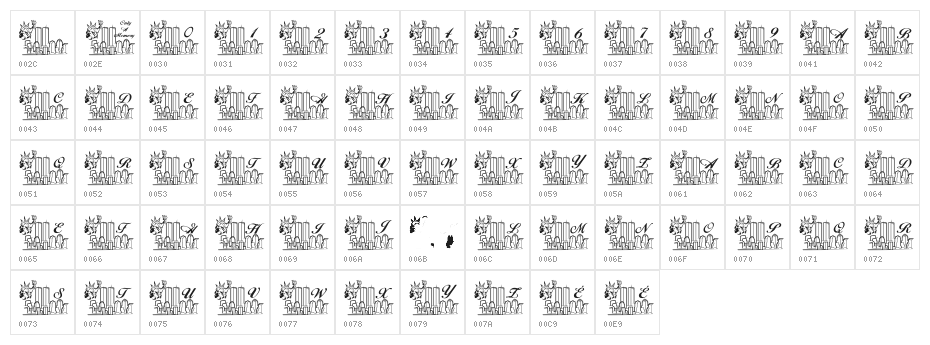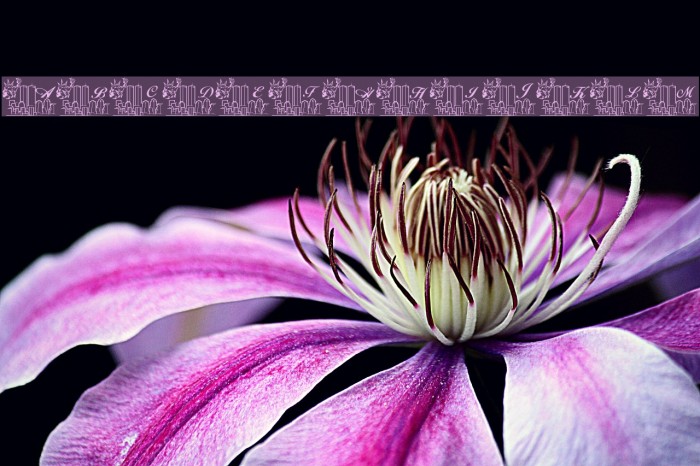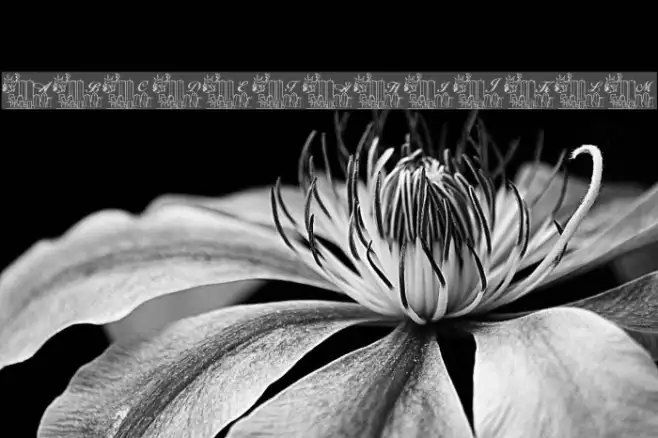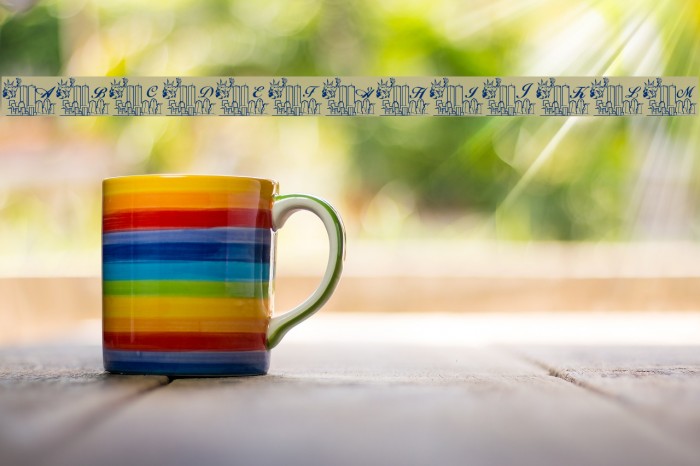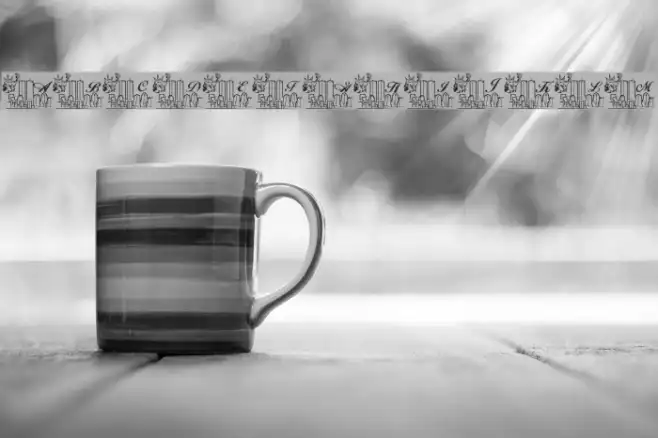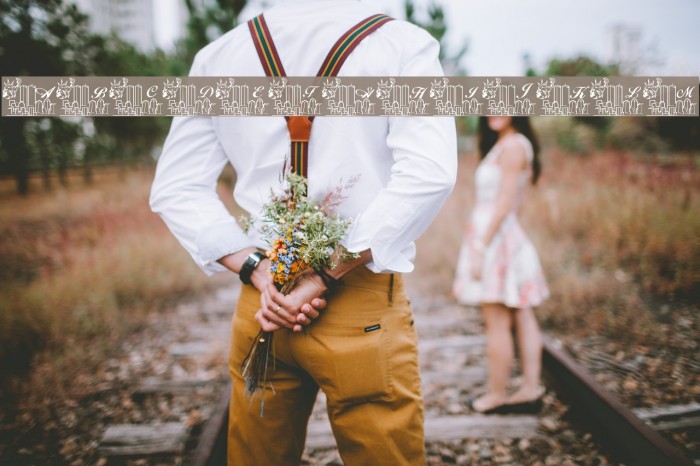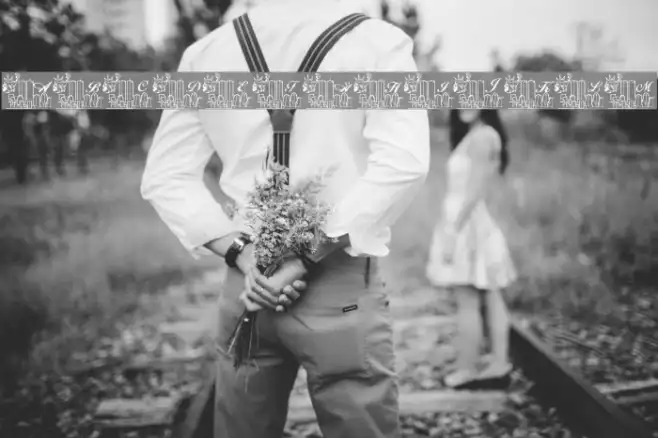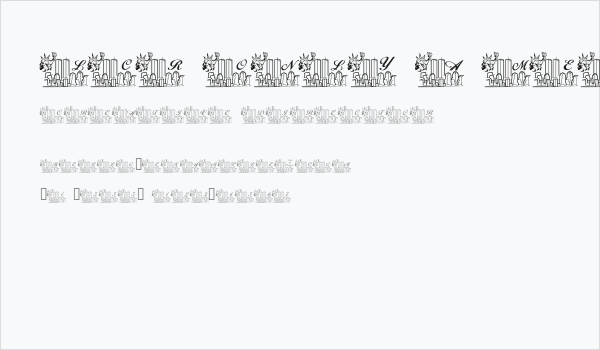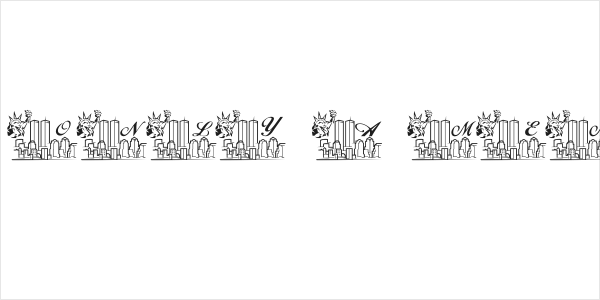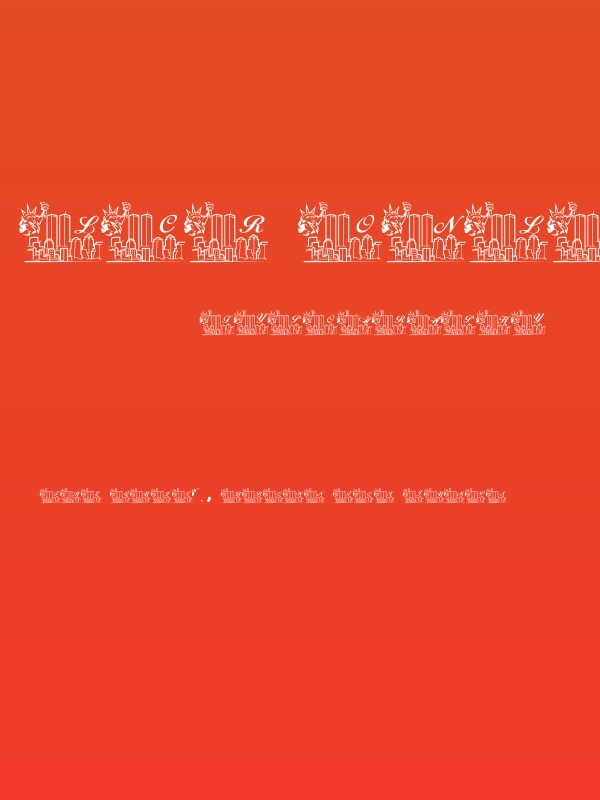
LCR Only A Memory Font
LCR Only A Memory Description
This font features a unique and intricate design, combining elements of nature with urban architecture. Each character is adorned with floral motifs and stylized cityscapes, creating a harmonious blend of organic and geometric forms. The letters are highly decorative, with elaborate details that make them stand out. This artistic style is both eye-catching and sophisticated, making it suitable for projects that require a touch of elegance and creativity.